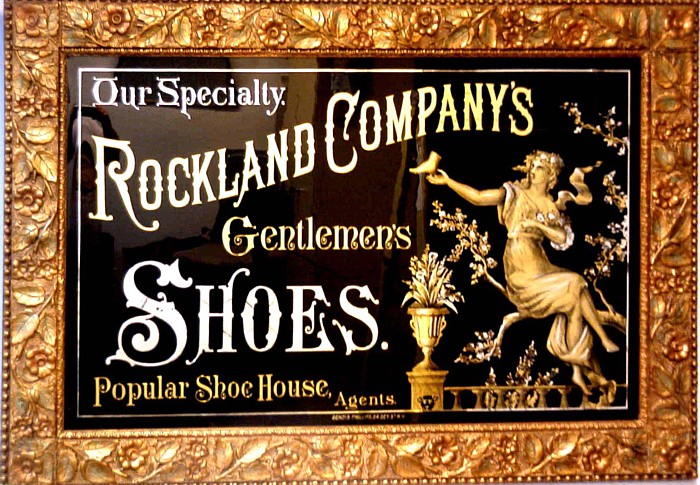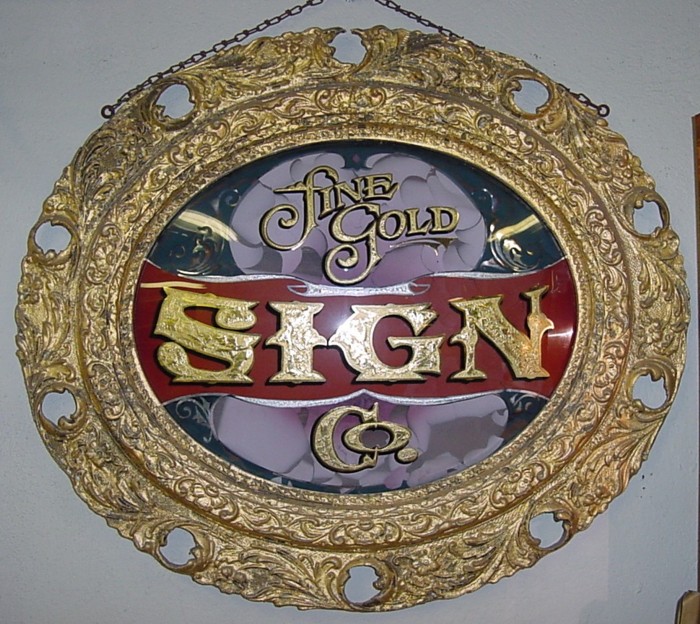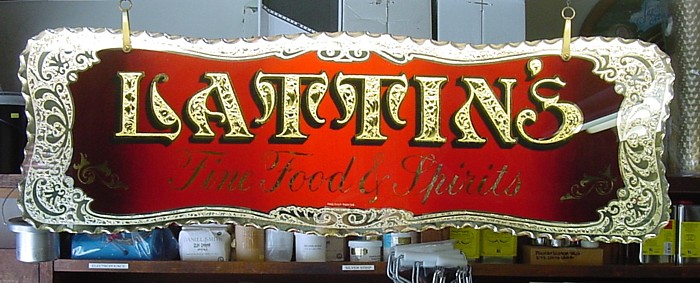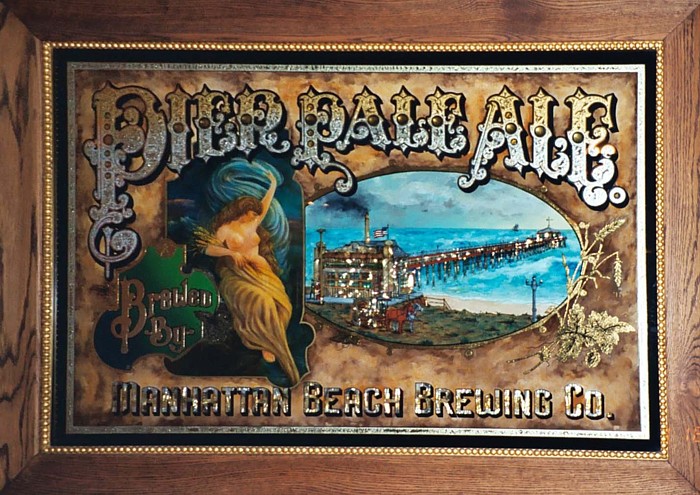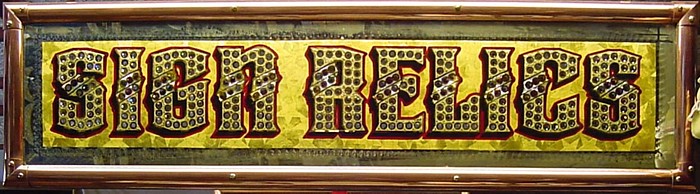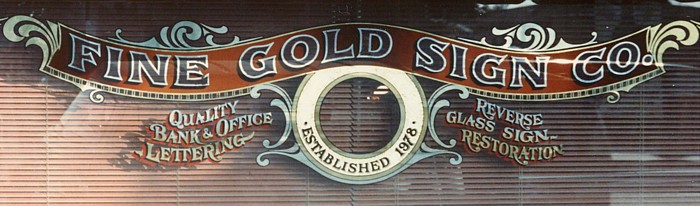
Rick Glawsons Glass
I am trying to build my own website/blog and have sections of the site dedicated to the original glass work by English and American Companies that inspired us all
to make reverse glass. I have an old picture of Rawson and Evans building with signs outside and inside the windows but it needs more pieces scattered around the brick work and such like. I thought it would be nice to have some of Ricks pieces hanging inside the windows. I have been trying to find the round concaved glass that said Fine Gold Sign Co ,it has a nice gilt frame framing it, also any other pieces that he made would be useful .
This one?.....
I've got others......
Perfect!, You might like what I do with this one...... If you have any others and also some pics of Rick all would be good.
How 'bout this.....
...now we start...
Those are just beautifull, especially the Pier Pale Ale sign.
For those lucky enough to have attended any of Rick's Conclaves...
Remember how Rick would stop from being tugged in all directions, and
for a moment, give a quick demonstration of a technique. He always
made it seem so simple and effortless, and when he was done, he would
look at you, and without words, he would give you the confidence and
enthusiasm to try it yourself?
"Loving Mentor, Devoted Friend, Cherished Spirit"
Aho, Rick Glawson.... I miss you!
What's the story on the female head drawing?
One of Rick's?
What technique?
A dainty and sensitive sketch, I think.
Well...it's not a sketch. It's a detail of this sign...
...not a Rick Glawson original artwork, but you can bet he had a hand
in making it look this nice! I made an offer on this piece once...but as
far as I know, his brother still owns it.
The figure and other ornaments are acid etched, with blended gold karats, and "scratch" shaded. Very nice indeed!
Is it an original piece do you think or a copy of an older one?
It's a restoration of an old antique sign...
This is an original piece Anthony. I remember seeing this at Ricks on a few occasions, I would imagine others were made like it.
Well, I would call it a sketch, as it is shaded with cross-hatching on glass.....
Whether Rick drew/re-drew it or not, I am amazed at the dimensionality rendered by this technique. Other than the gild, you mean to tell me it is just a flat acid etch, with no other relief and the very artful hatchwork is all that gives it the modeling?
Very, very nice, indeed!